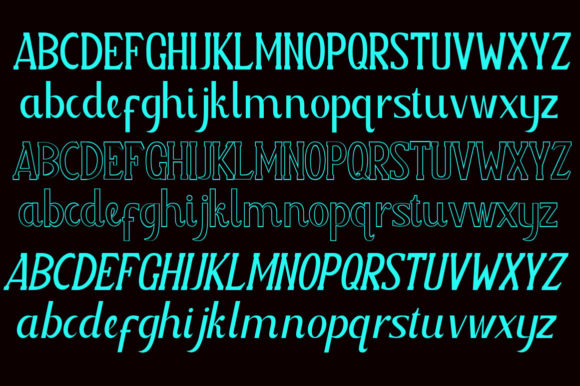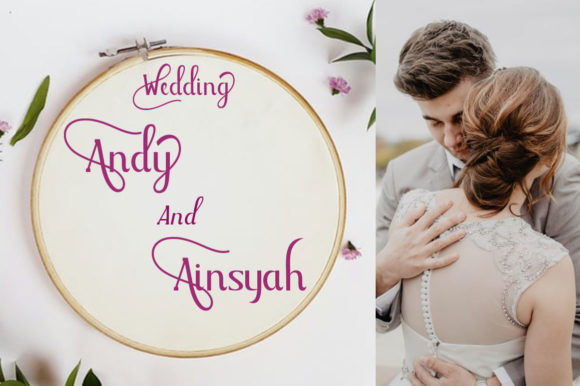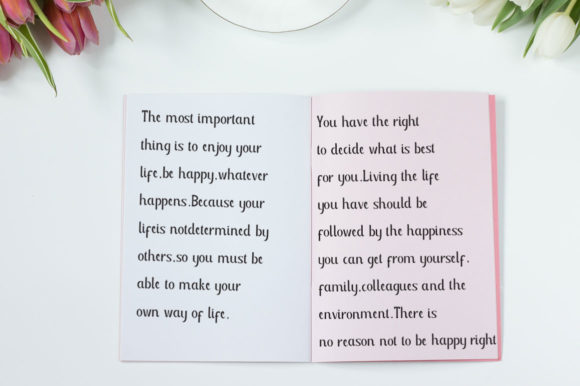
Introduction to Ronalld Font
Ronalld duo is a match made in heaven.
Combining these two stylish fonts on your next design will give it an elegant touch .
Key Features of Ronalld Font
Why Choose Ronalld Font?
Ronalld Font offers exceptional quality and versatility, making it a valuable addition to your design toolkit. Whether you’re creating for personal projects or commercial use, Ronalld Font delivers professional results.